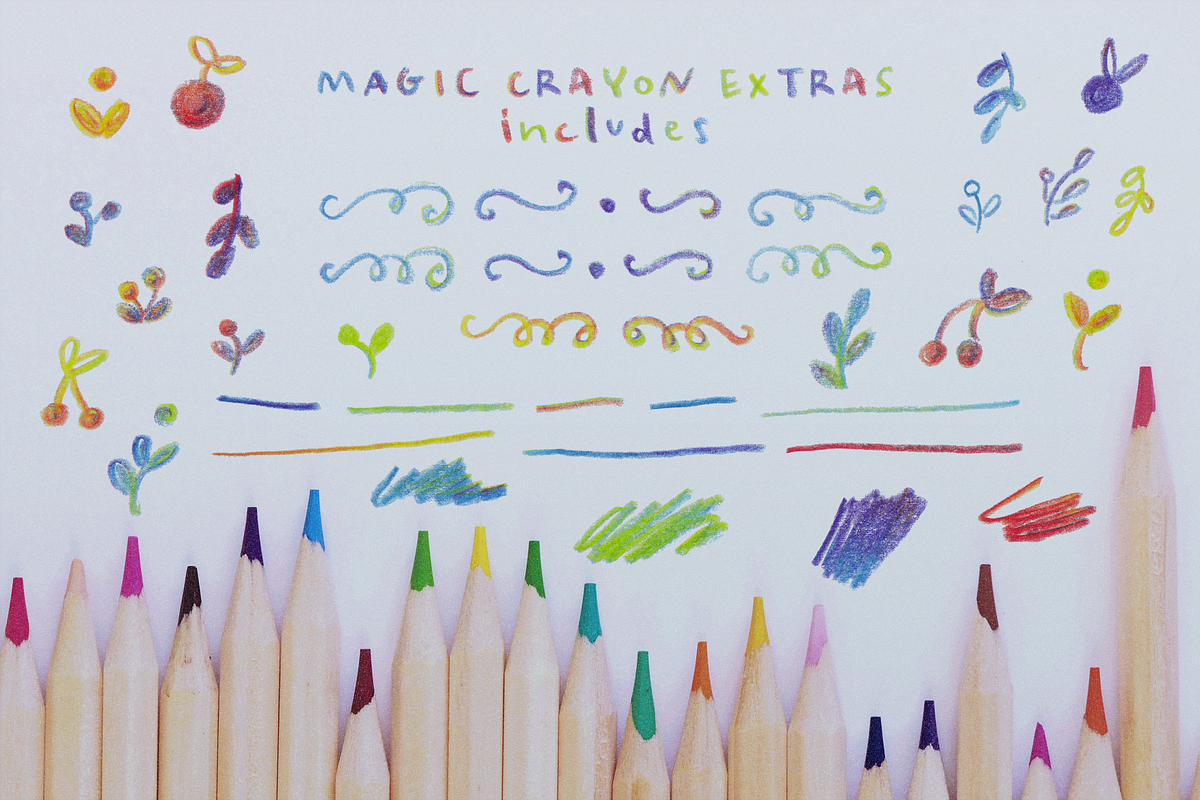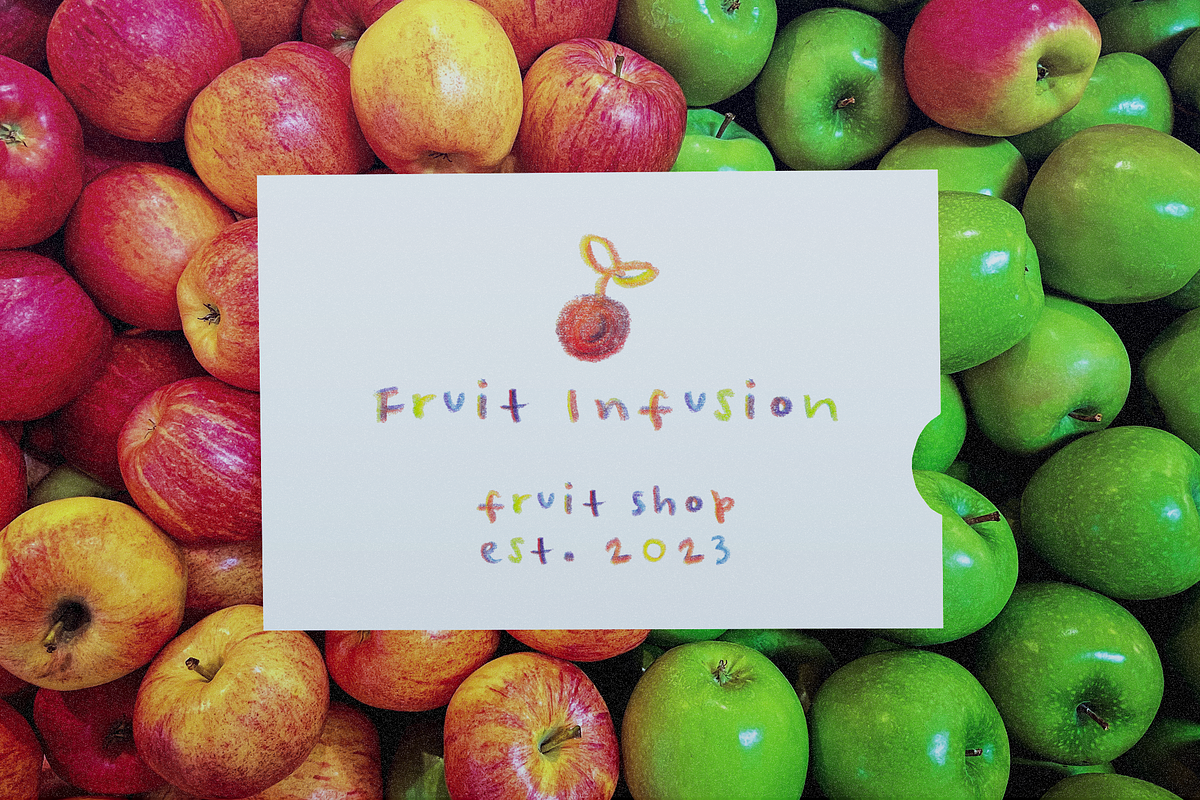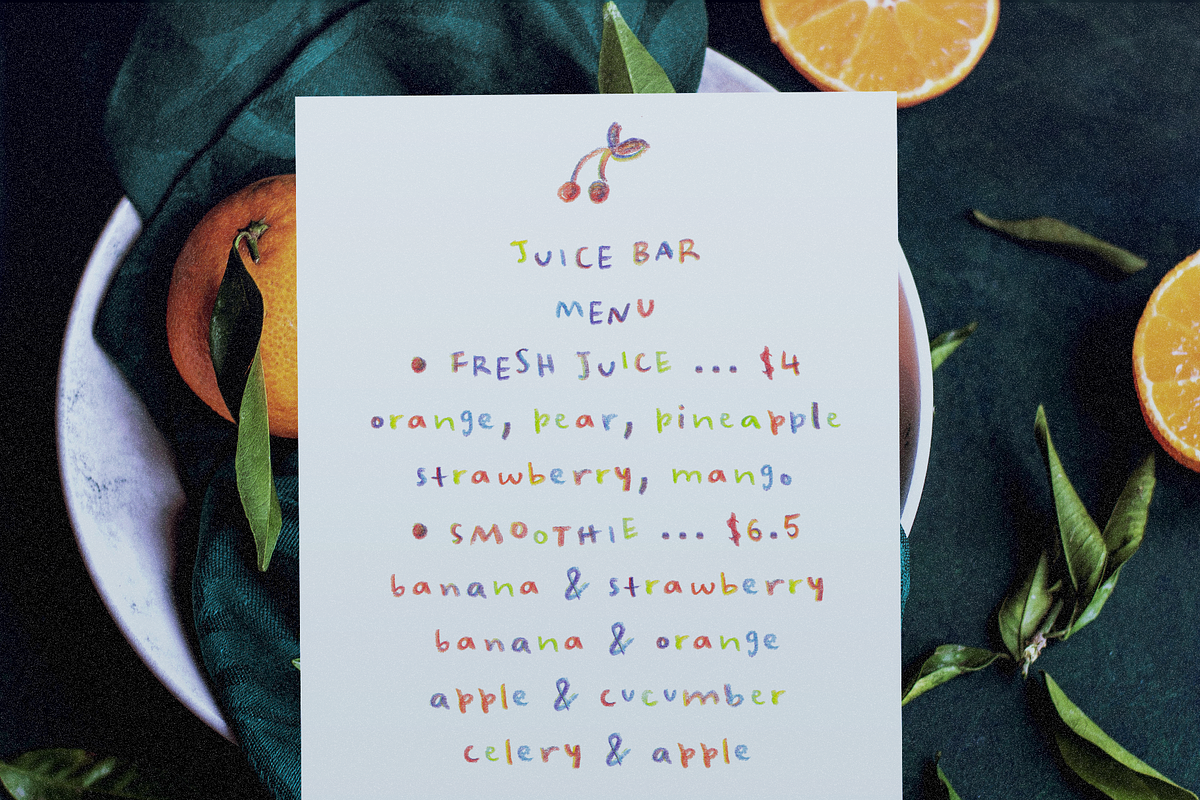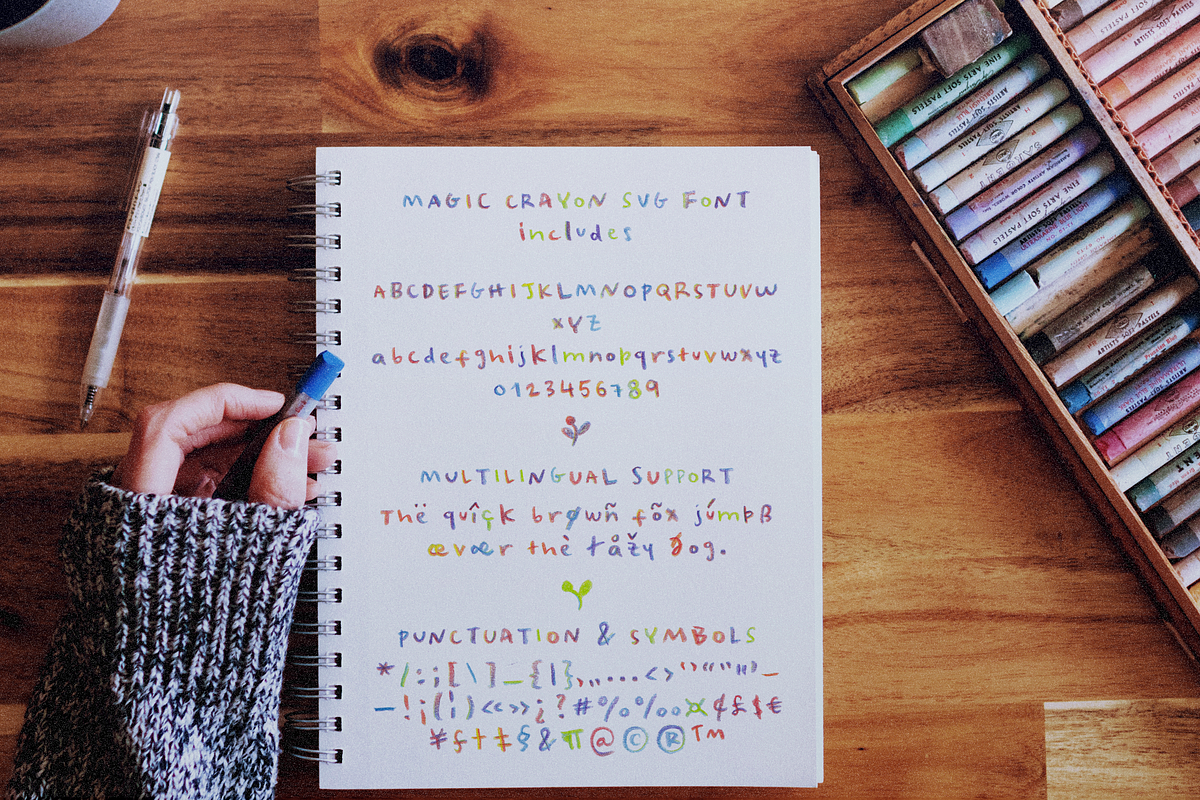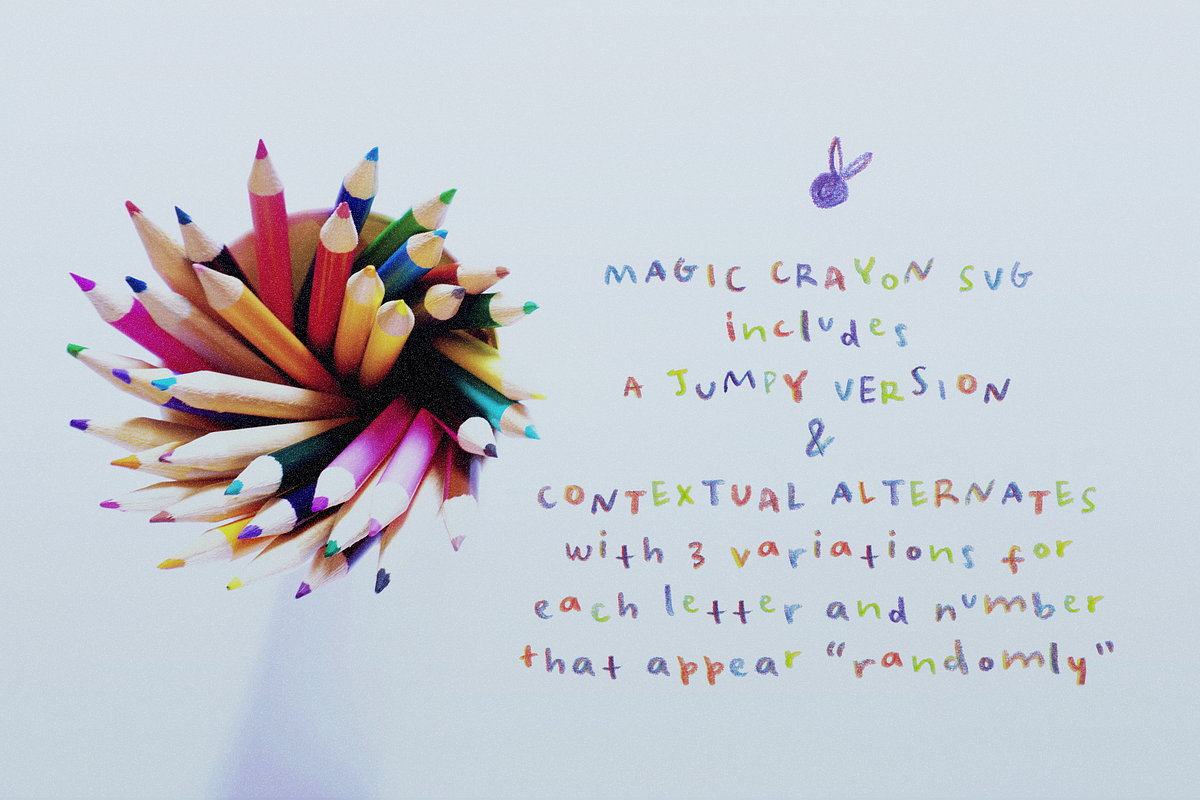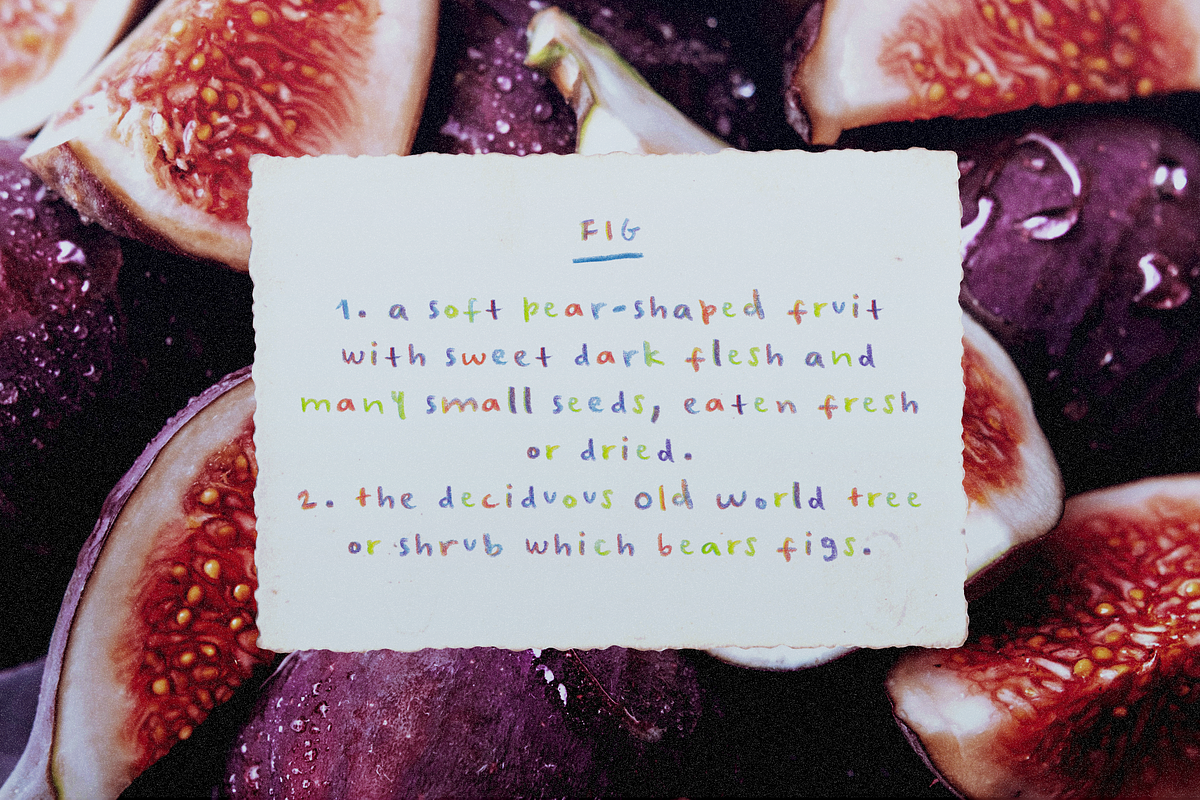
Magic Crayon SVG color font
Magic Crayon is a color SVG font made using a magic pencil. The SVG format allows for the texture of the pencil and color to be captured in a more authentic way. Magic Crayon includes an extra doodles font, a jumpy alternative, and 3 variations for each letter and number, accessible through contextual alternates, for extra realism and fun. Magic Crayon looks good at small sizes and will also look great in all caps texts. Use it in designs such as postcards and notes, posters, logotypes, social media posts, branding and packaging.
- Magic Crayon SVG
- Magic Crayon SVG Jumpy
- Magic Crayon SVG Extras with 52 doodles elements